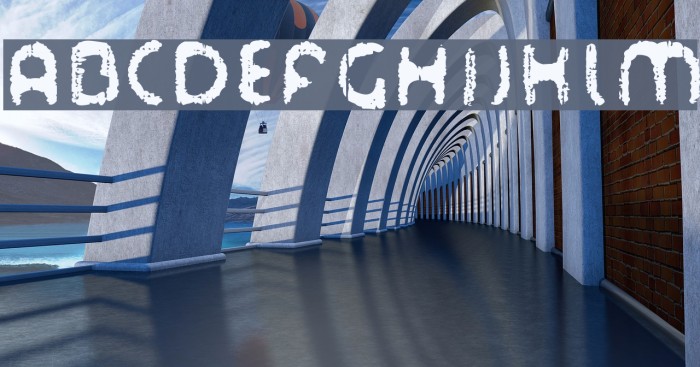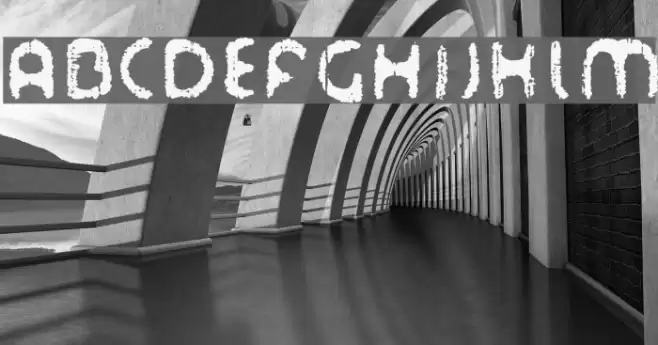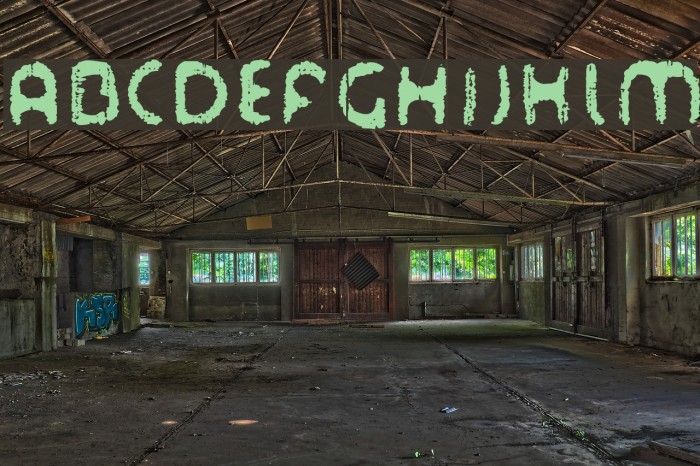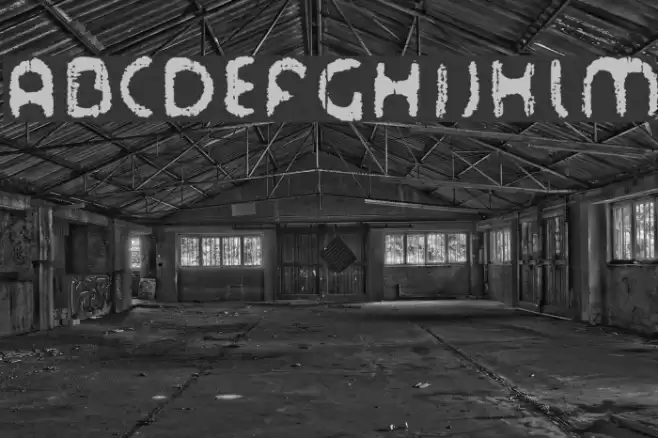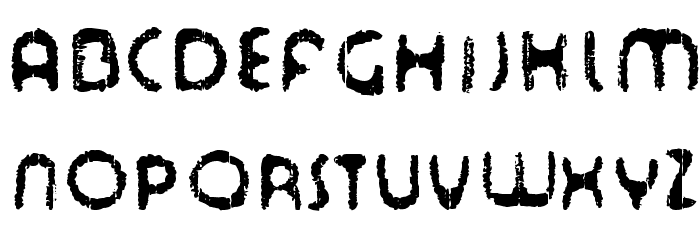
Tour de Font Description
This font features a rugged, distressed appearance, reminiscent of worn-out textures or graffiti. The letters are bold and have an uneven, hand-painted look, giving them a unique, artistic flair. The edges are rough and irregular, adding to the font's raw and edgy character. This style is ideal for projects that require a bold statement or a touch of urban, gritty aesthetics. The uppercase and lowercase letters maintain a consistent style, with a slight variation in size and shape, enhancing the organic feel. The numbers and special characters follow the same design principles, ensuring a cohesive look across all text elements.
| Overall Style | Urban, Gritty, Artistic |
| Proposed Projects | Ideal for street art designs, music album covers, edgy branding, and posters requiring a bold, artistic touch. |